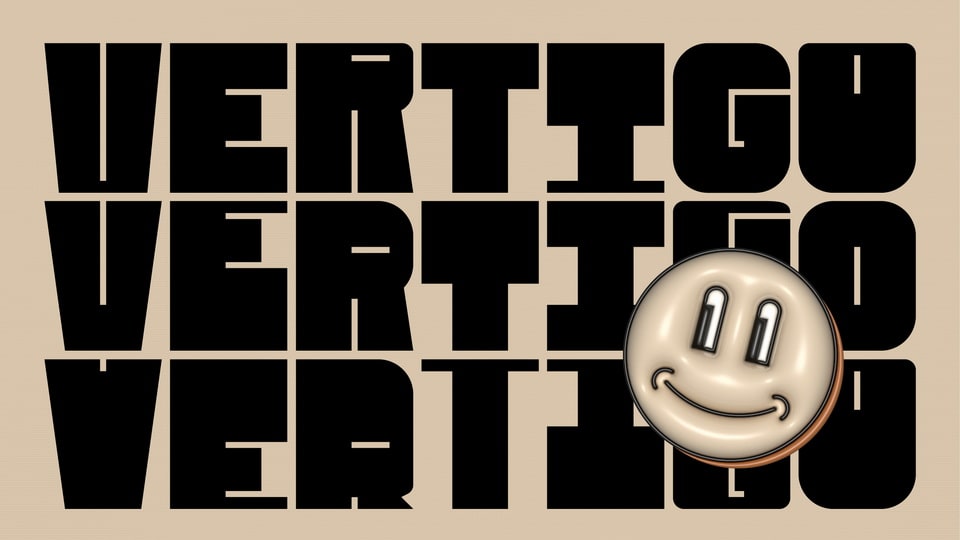
Download Vertigo font, an all caps sans-serif typeface, with three alternatives of midline heights for each glyph. Vertigo is a font with a retro soul, with which to have fun creating new combinations all the time.